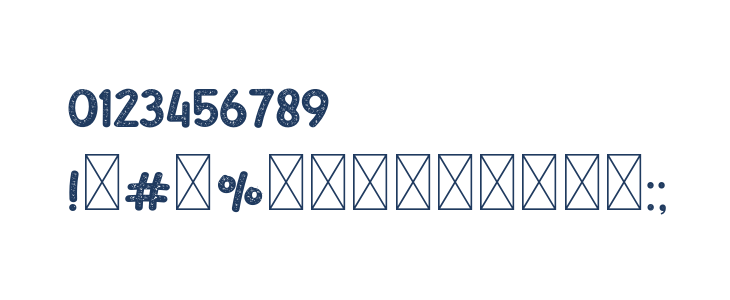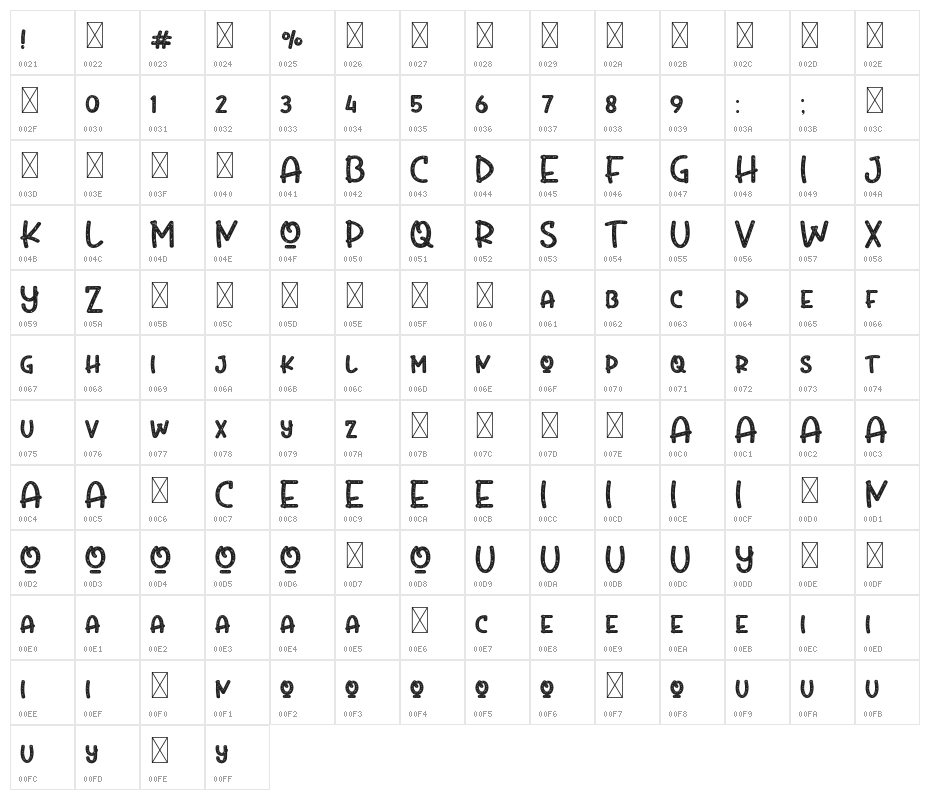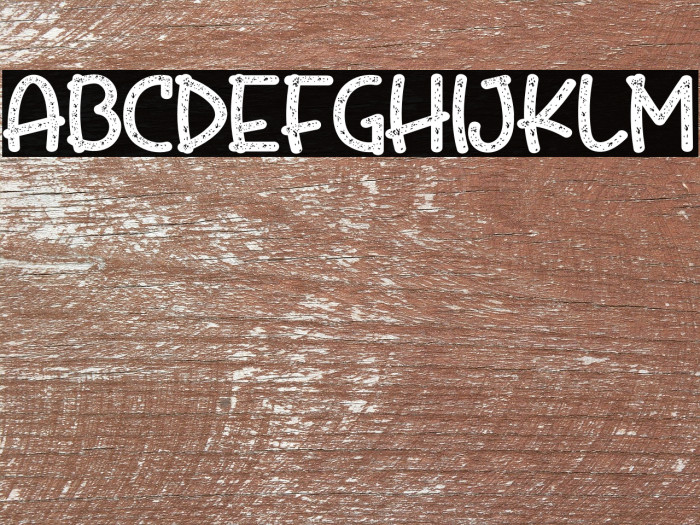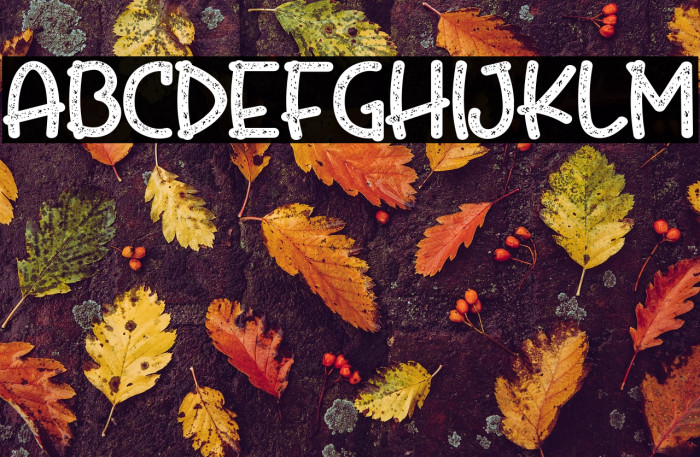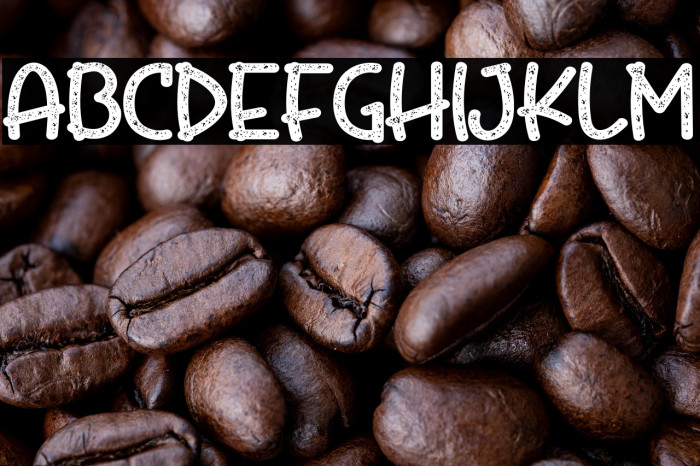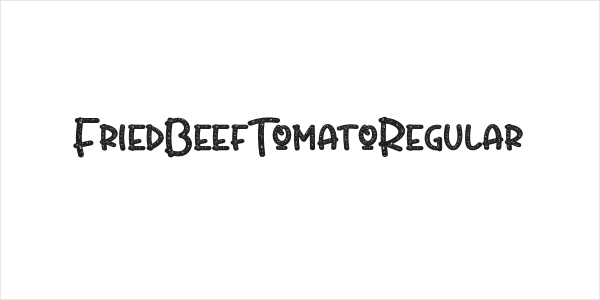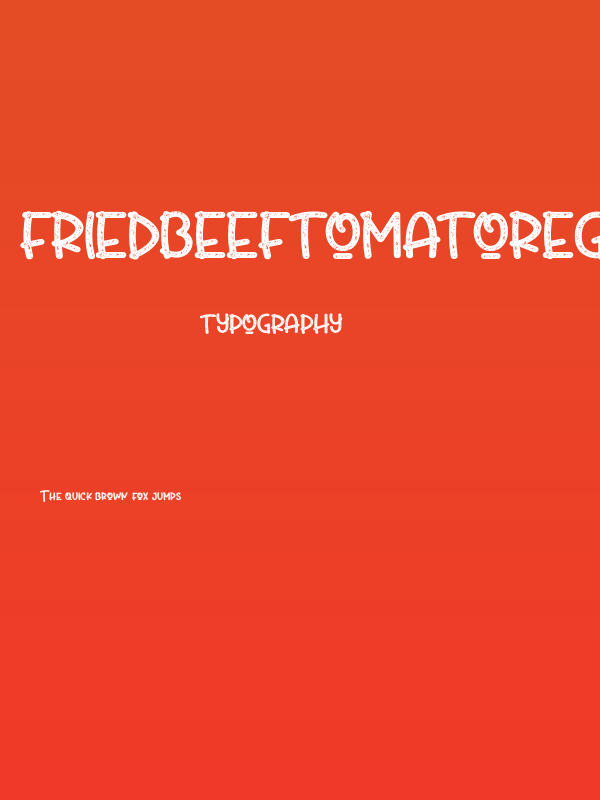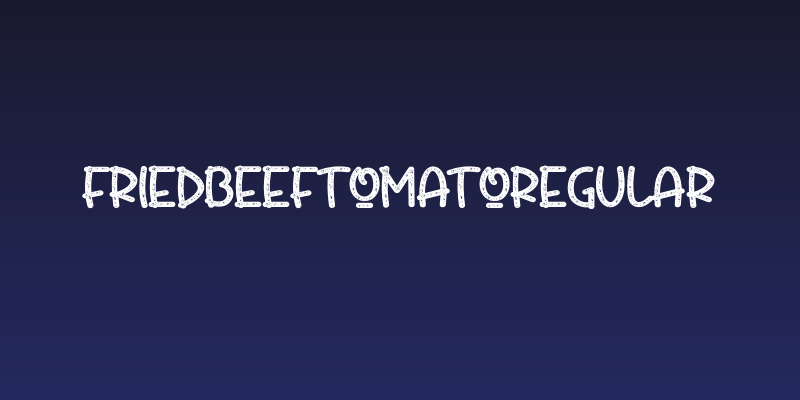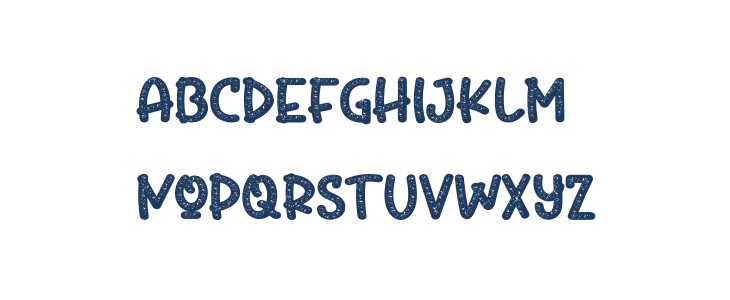
FriedBeefTomatoRegular Font
FriedBeefTomatoRegular Description
This playful and bold font features a unique textured appearance, reminiscent of chalk or crayon strokes. Each character is filled with a speckled pattern, adding a whimsical and artistic touch. The letters are rounded and slightly irregular, giving them a hand-drawn feel. The uppercase and lowercase letters maintain a consistent style, with a friendly and approachable look. Numbers and special characters follow the same design, ensuring a cohesive appearance across all elements. This font is ideal for projects that require a fun and informal vibe, such as children's books, playful branding, or creative posters.
| Overall Style | Playful, Artistic |
| Proposed Projects | Children's books, playful branding, creative posters, educational materials. |